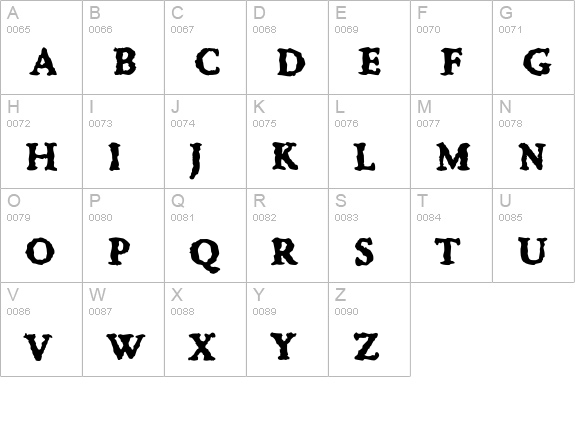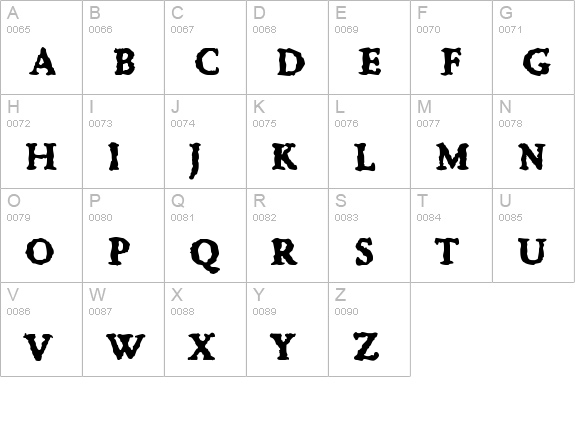
Irregular-Black is a maximum-weight, dramatic variant in the Irregular typeface family \xE2\x80\x94 well suited to maximum-impact headlines, posters, and packaging.
Introducing the captivating Irregular-Black font, designed to make a bold statement and leave a lasting impression. This unique typeface combines irregular, hand-drawn elements with a sleek black finish, creating a striking visual aesthetic that is sure to captivate any audience. With its edgy and irregular letterforms, Irregular-Black font stands out from the crowd, making it perfect for eye-catching headlines, logos, and branding materials. The irregularity in the design adds a sense of organic creativity, making each character feel unique and one-of-a-kind. But the best part? Irregular-Black font is completely free! Yes, you read that right. This stunning font is freely available to download at FontsMarket.com. Now you can add a touch of artistic flair to your projects without breaking the bank. Whether you're a designer looking to add a touch of sophistication to your next project or a creative individual wanting to make a statement with your personal brand, Irregular-Black font is the perfect choice. Its versatility allows it to be used across a wide range of design applications, from posters and flyers to website headers and social media graphics. So why wait? Download Irregular-Black font now from FontsMarket.com and unleash your creativity. With its distinctive style, easy readability, and the added bonus of being free, this font is a must-have for any designer or creative enthusiast. Don't miss out on the opportunity to make a lasting impact with Irregular-Black font.